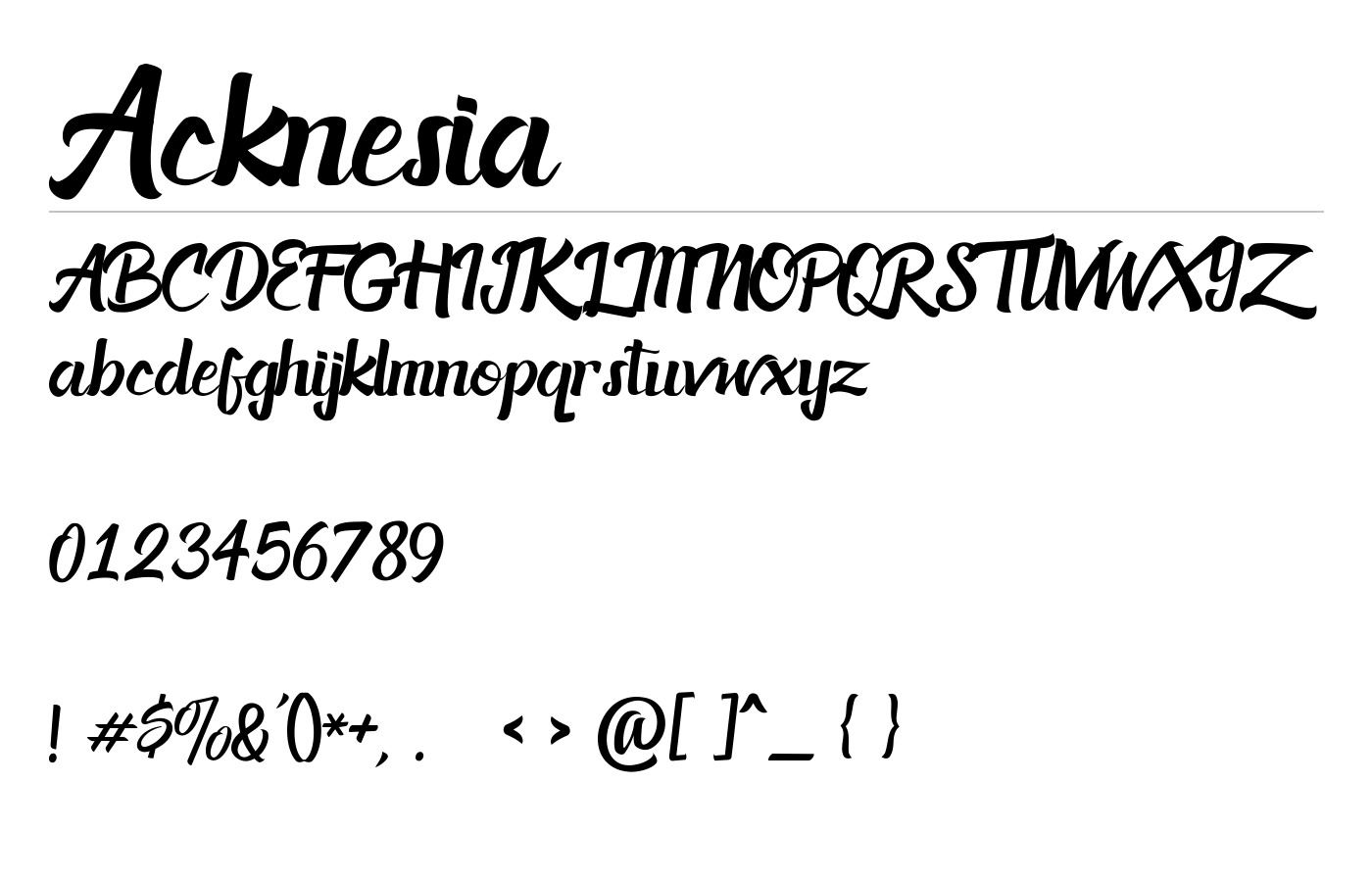
Acknesia is a lively script font with smooth, flowing strokes and a friendly, informal feel. Its moderate weight and slightly condensed letterforms create a balanced, readable style, making it ideal for casual branding, invitations, and playful headlines. This font’s unique character shapes and dynamic curves add charm and personality to any creative project.
Acknesia Font
About Acknesia Font